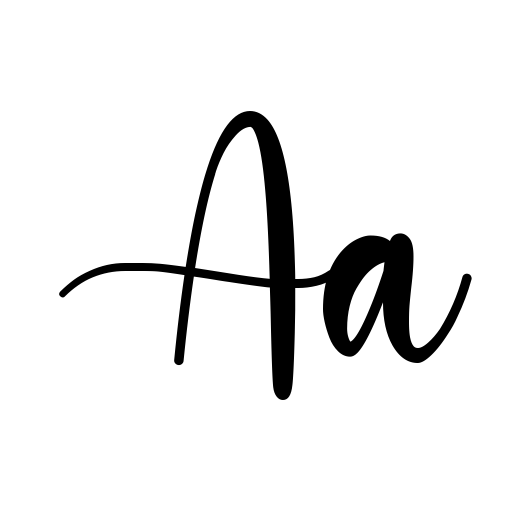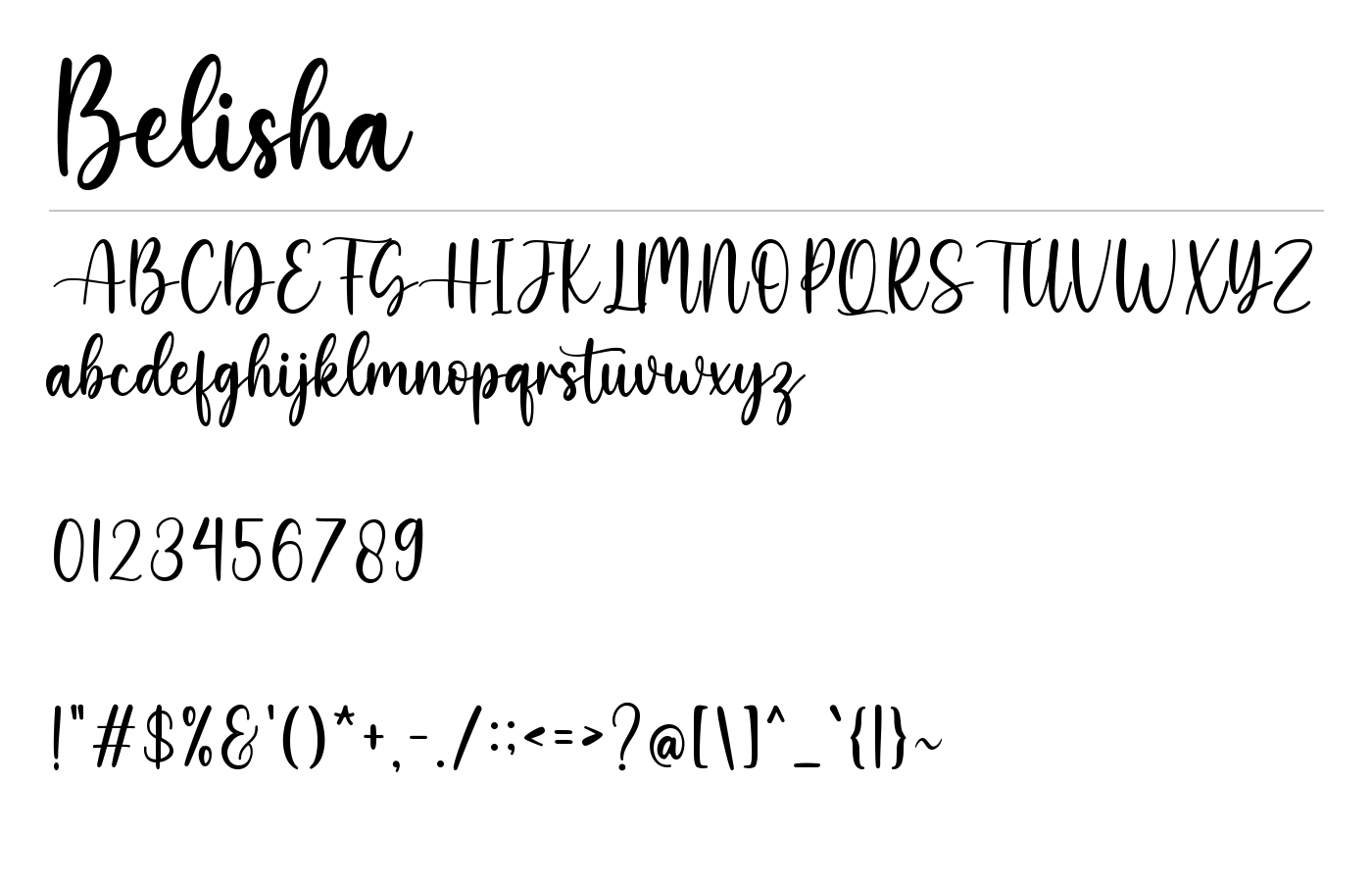
Belisha is a charming handwritten script font with a playful yet elegant feel, featuring smooth, flowing strokes and varying line thickness that create a natural, hand-drawn look. Its tall, slender letterforms and whimsical uppercase characters make it ideal for creative branding, invitations, and feminine designs that want to convey warmth and personality. This font works best in headlines, logos, and decorative text where a touch of casual sophistication is needed.
Belisha Font